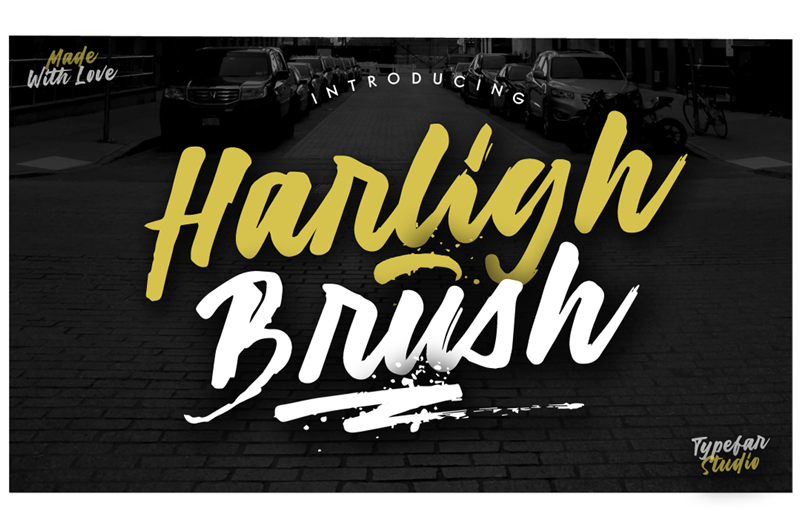
Harligh Brush Font. This font is made with a brush so it looks natural like handmade. This font is the best used for your design projects such as poster designs, album music, Calender, website headers, make some letter quotes, t-shirt designs, etc NOTE: This demo font is for PERSONAL USE ONLY! But any donation are very appreciated. Paypal account for donation : https://www.paypal.me/FahrulArjianto Link to purchase full version and commercial license : https://creativemarket.com/typefar/2936369-Harligh-Brush-Font Please visit our store for more great fonts :https://creativemarket.com/typefar And follow my instagram for update : https://www.instagram.com/typefar Thank you |